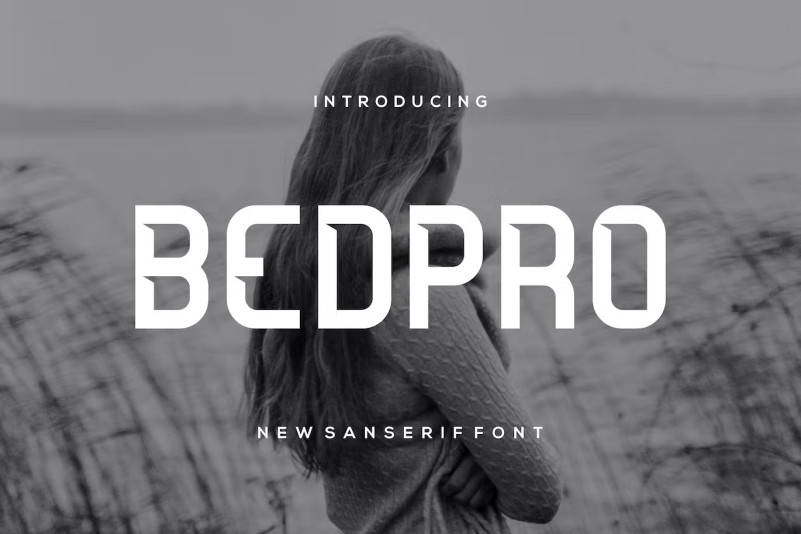
Bedpro Font
Bedpro Font is an elegant and authentic display font. This font is suitable for any branding projects such as logos, t-shirt printing, e-sports and many more. It is extraordinary in many contexts.